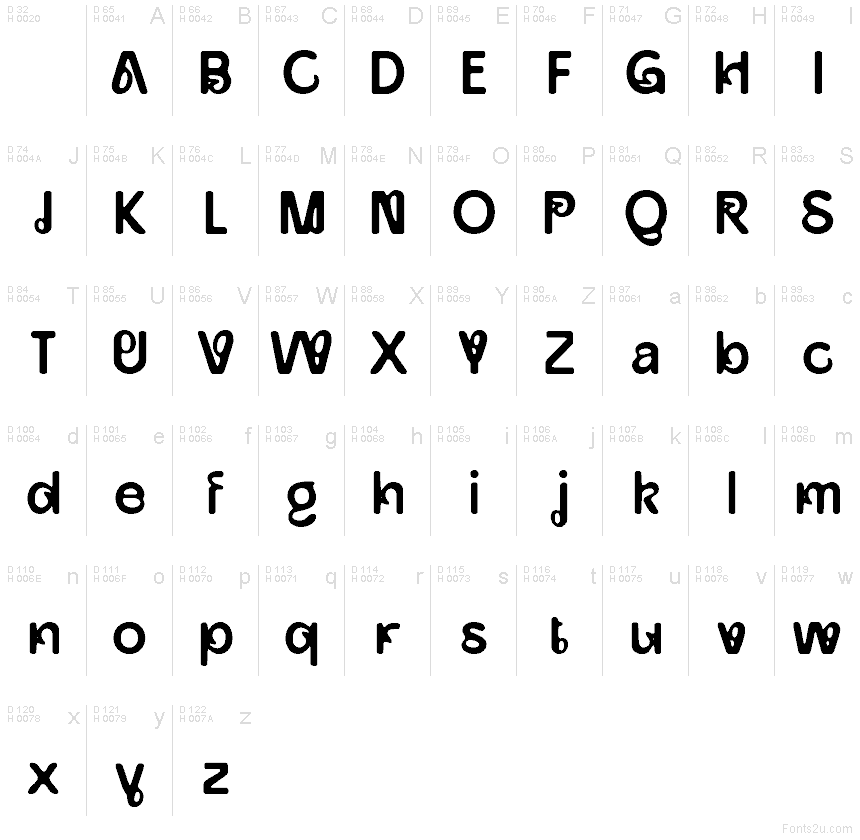
Anteprima del carattere CSReginaDrawn-Regular Demo
CS Regina Drawn font by Craft Supply Co. stands out with inky, rounded strokes that feel freshly sketched, not machine-cut. Built within the CS Regina family, this is a free bold hand-drawn display font that leans into soft curves, blobby terminals, and a gentle wobble that adds warmth without losing legibility. The rhythm is bouncy but controlled, so headlines read with friendly punch rather than chaos.
Using CS Regina Drawn, your wordmarks and headlines carry a tactile, marker‑on‑paper energy that shines on playful packaging, indie posters, kids’ branding, cafe menus, event flyers, and social graphics. Counters stay open and spacing is generous, making this free font easy to scale up for signage and hero text. Pair CS Regina Drawn for titles with the regular CS Regina for body copy to keep the look cohesive and clean.